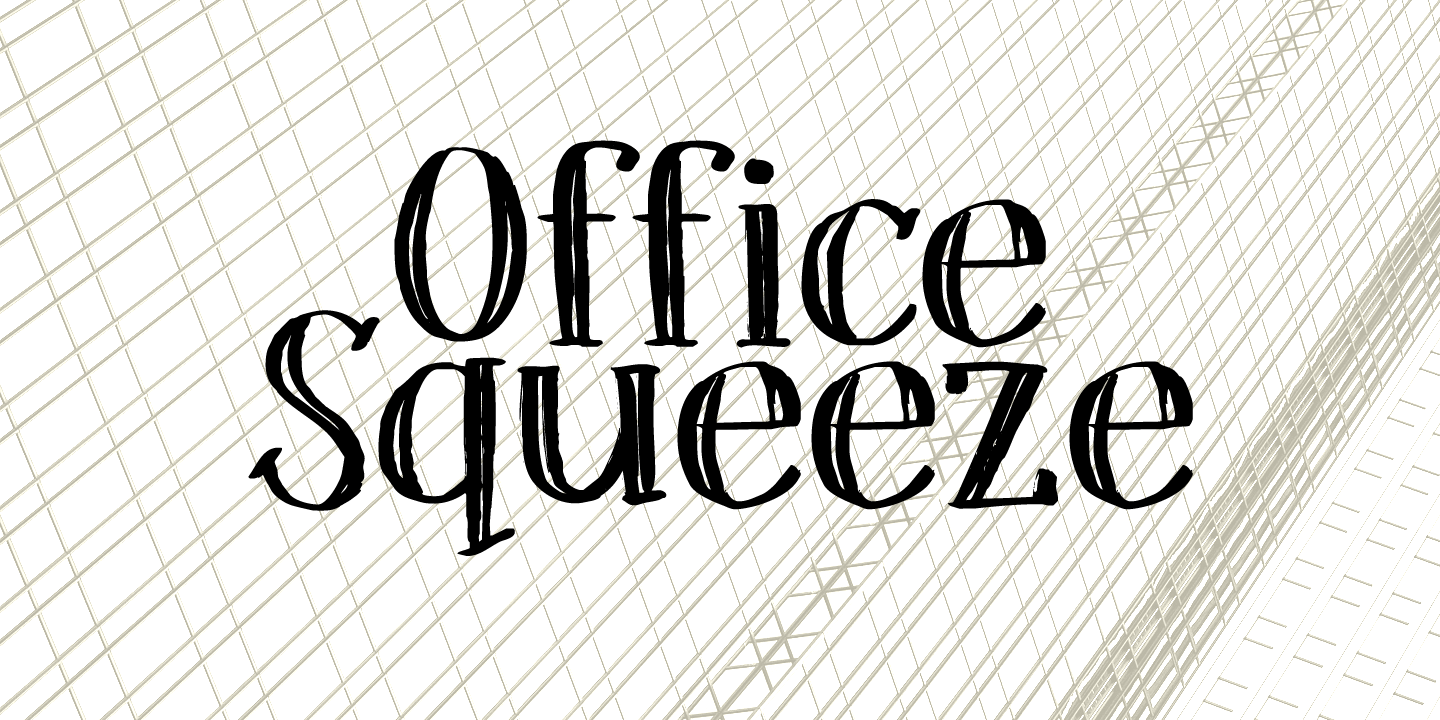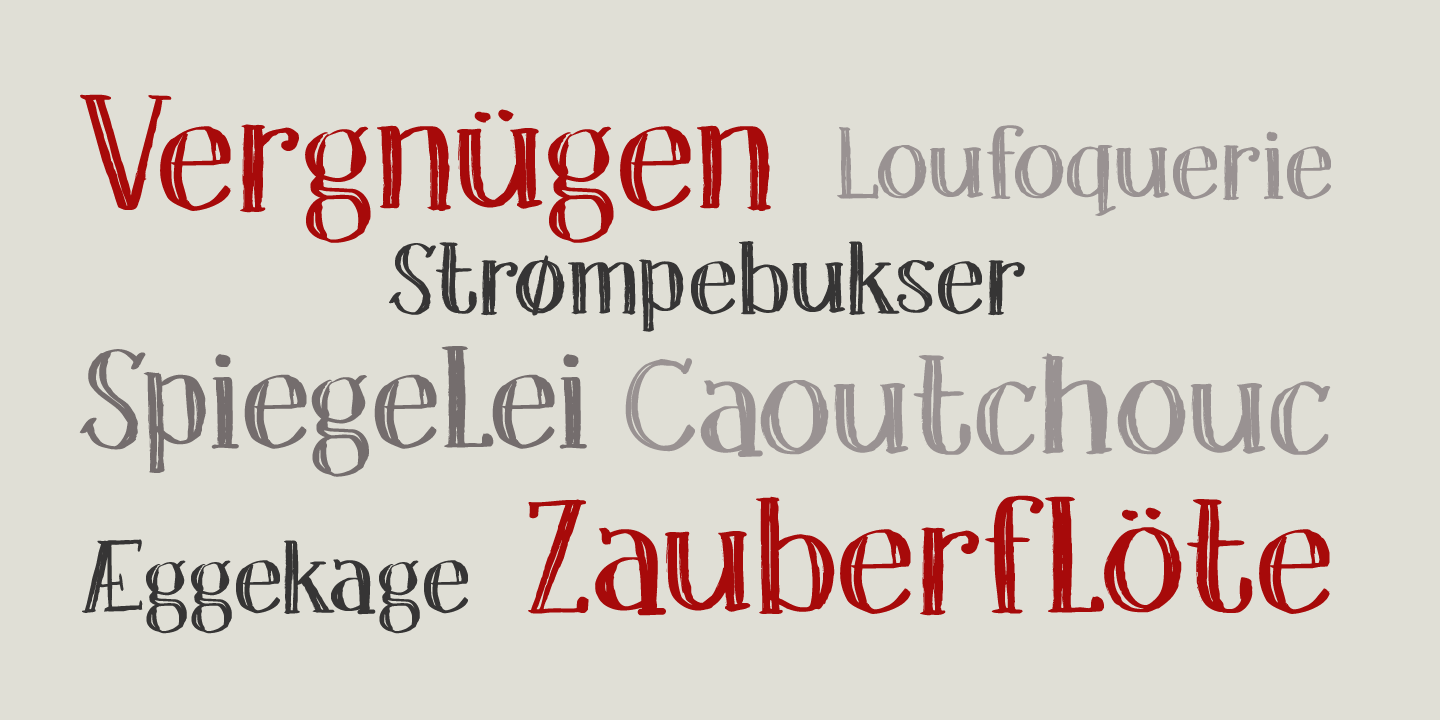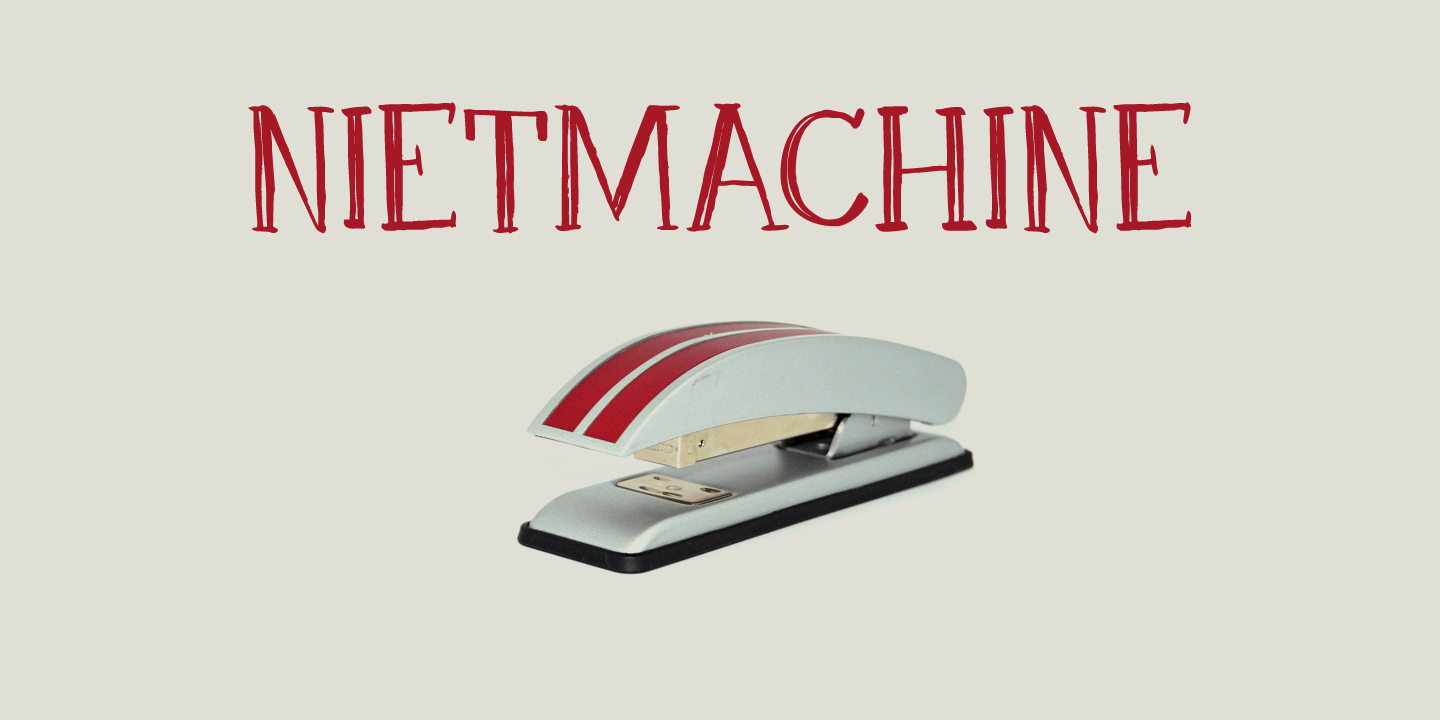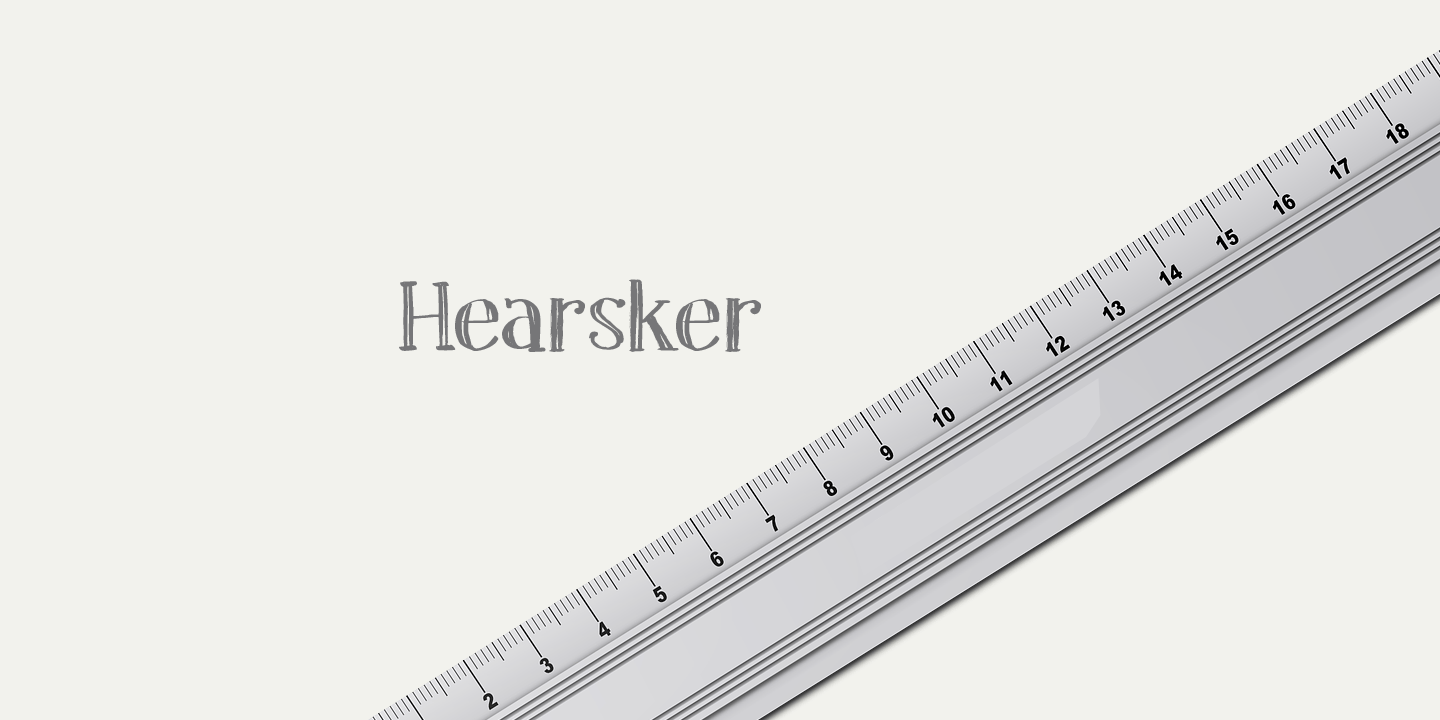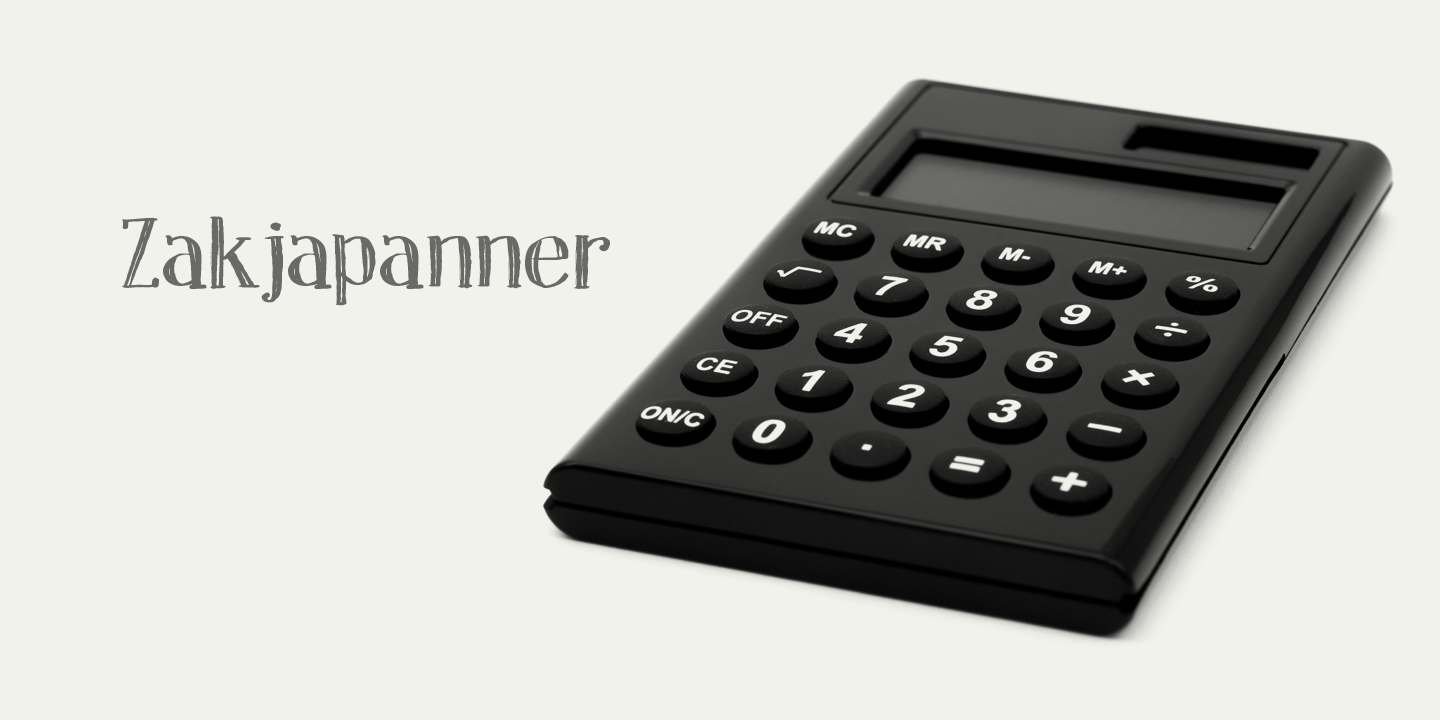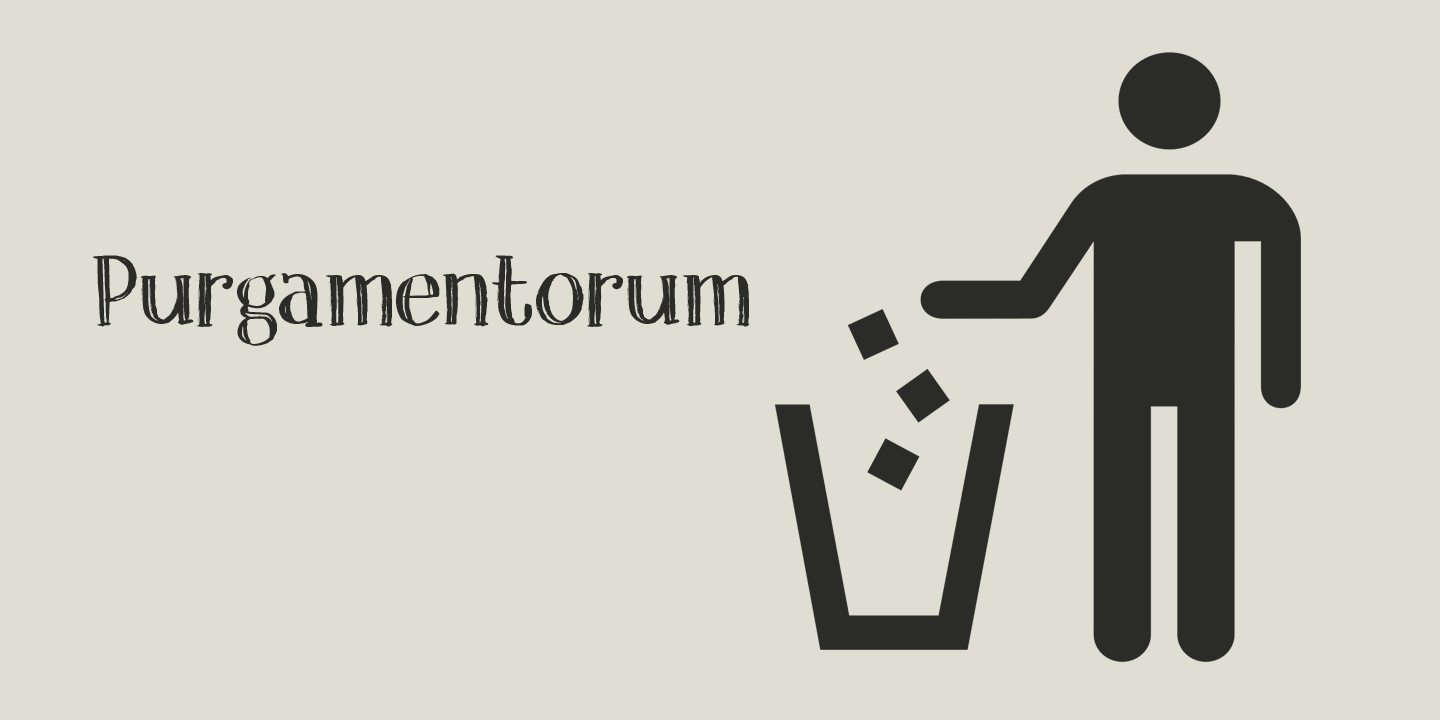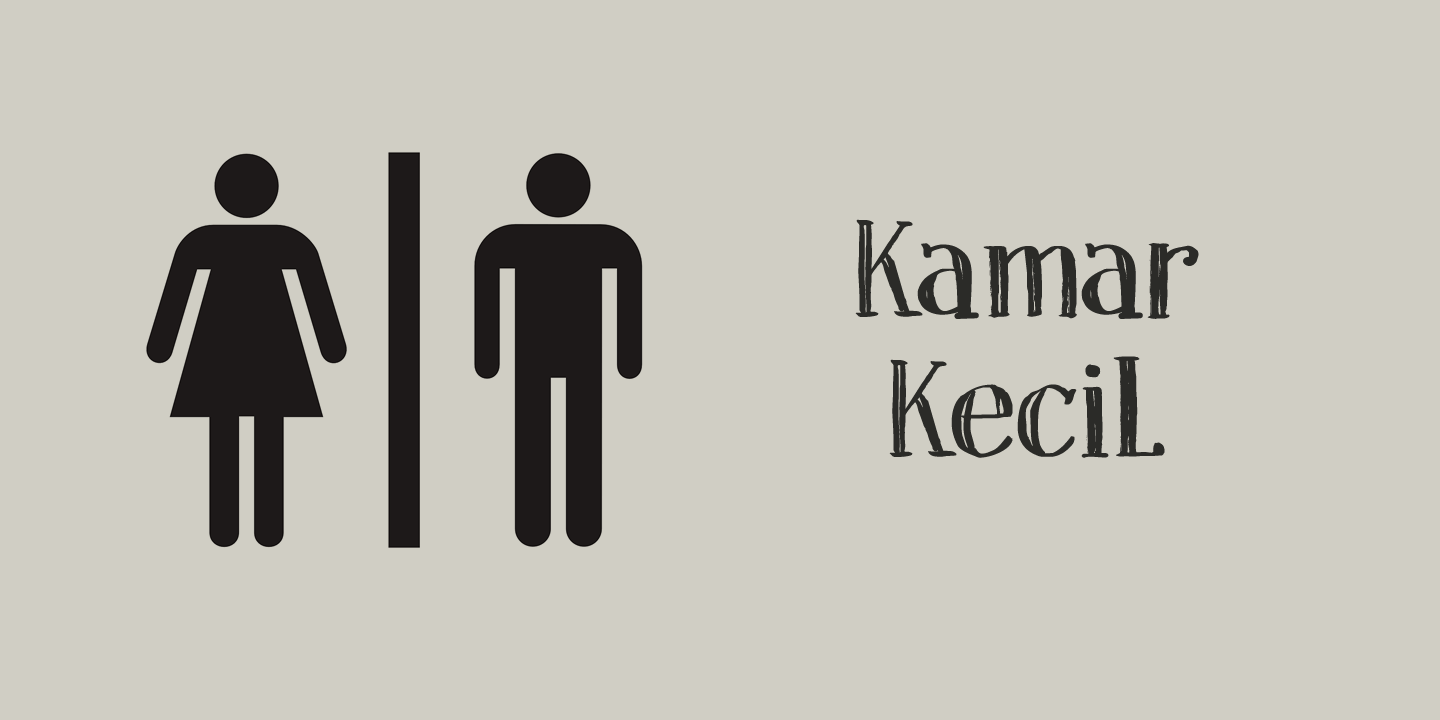
Office Squeeze
Font Family by Hanoded
Office Squeeze was made with a Japanese brush pen. I kind of like the fact that, despite its roughness, Office Squeeze still maintains a very neat appearance. Office Squeeze can be used for just about anything, but product packaging, logos and posters spring to mind. Comes with a generous square footage of diacritics.